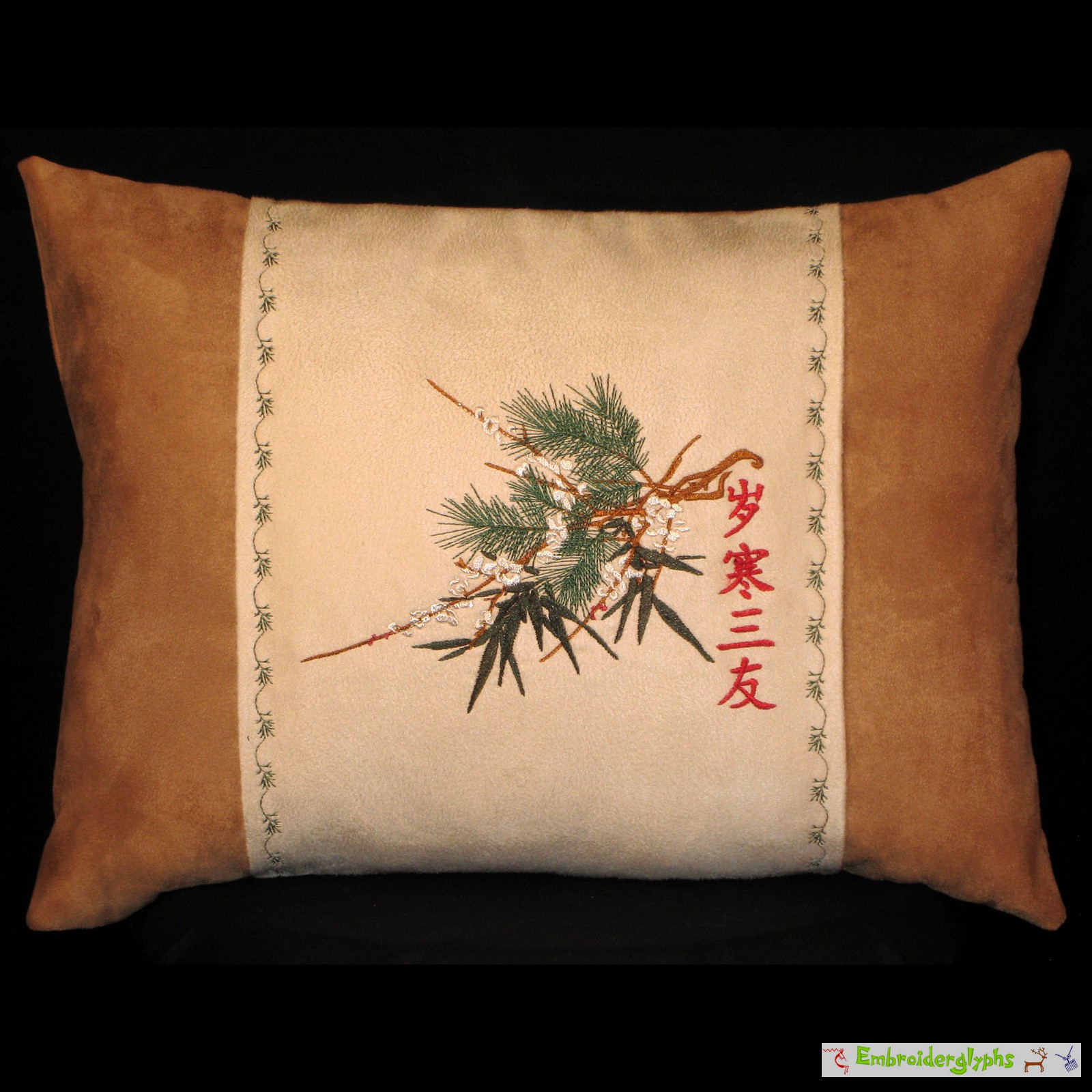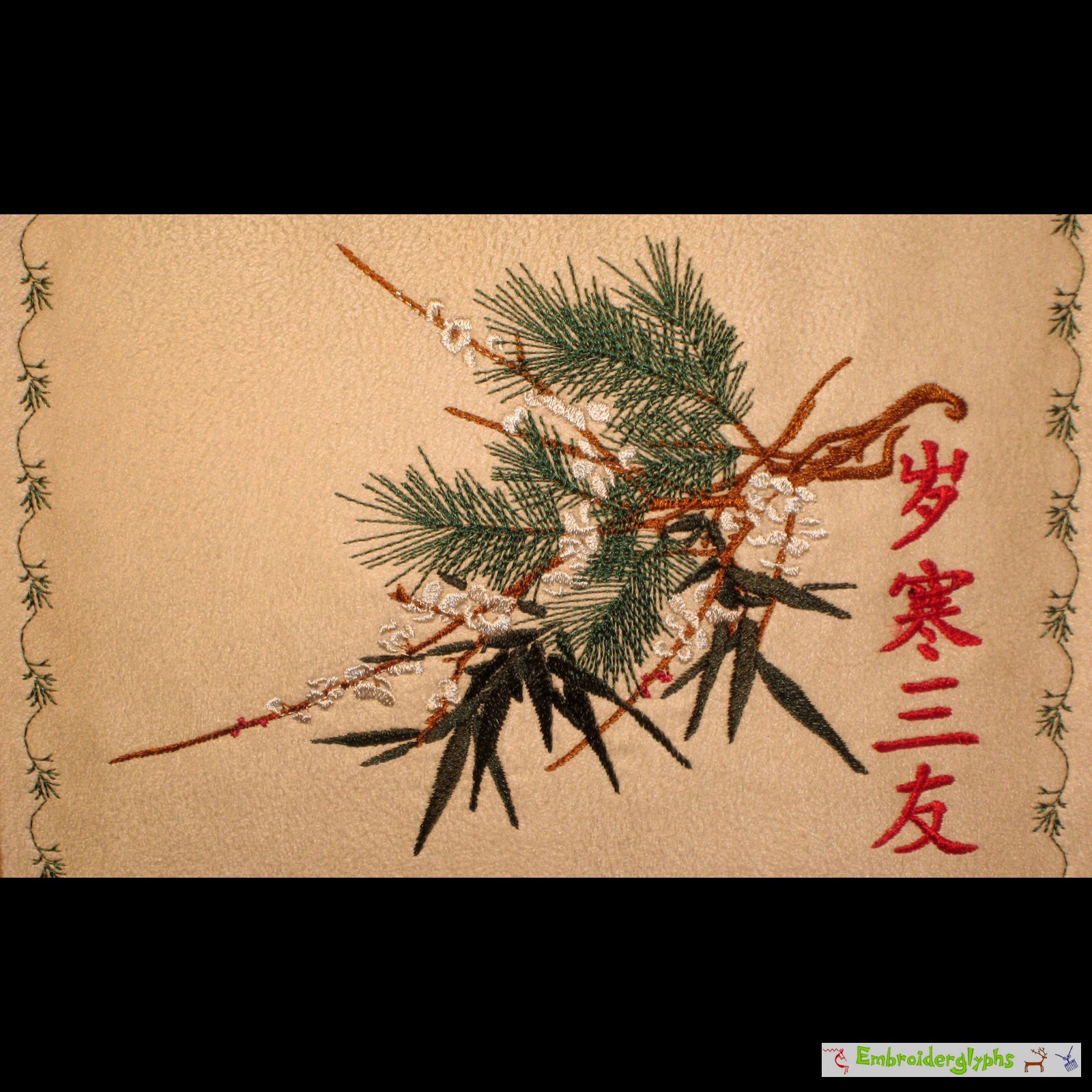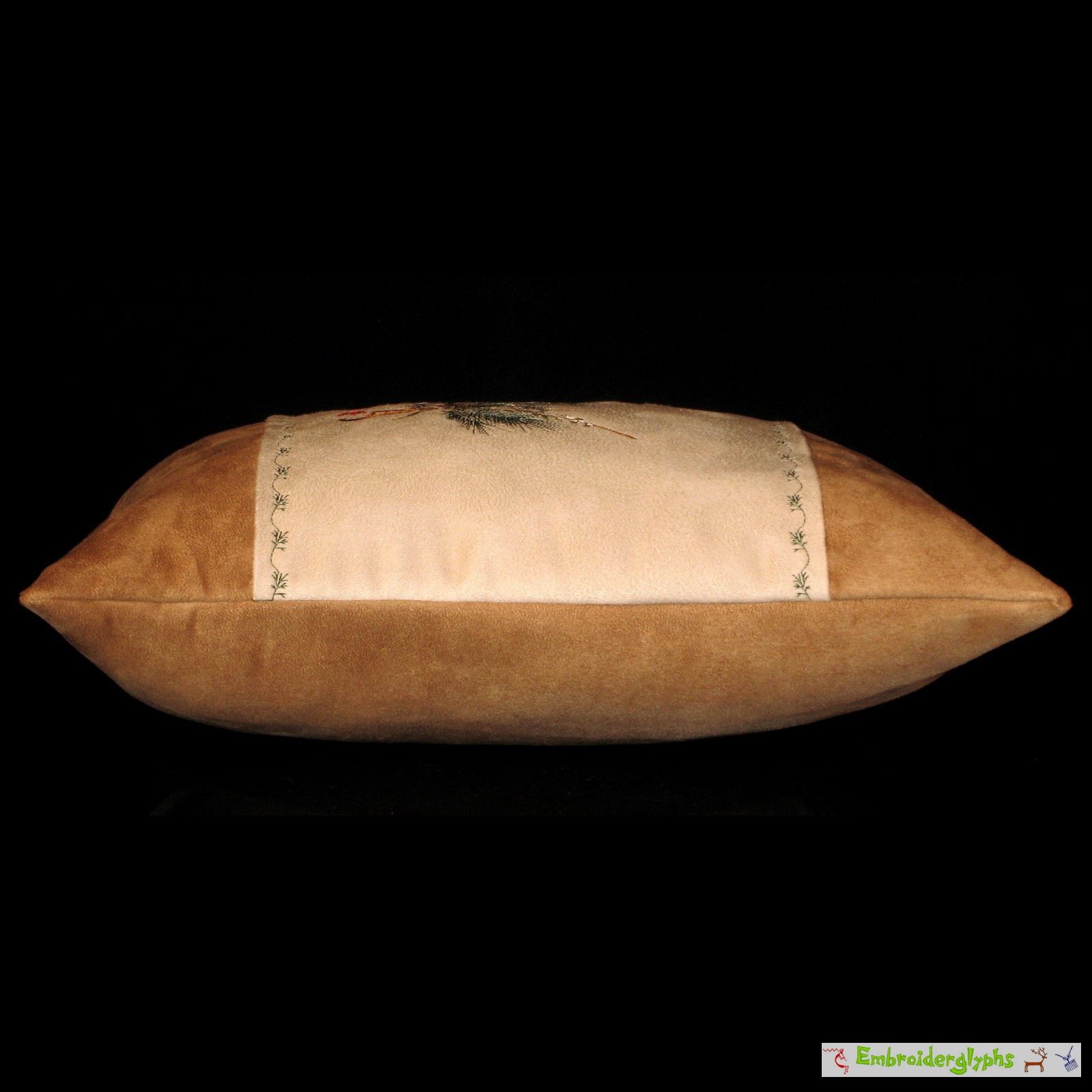
Cream & Tan “Three Friends of Winter” Accent Pillow
This is a one-of-a-kind custom accent pillow. It is a very elegant & beautiful pillow with a classic Chinese theme, called, "Three Friends of Winter."
The three “friends” refers to: pine, bamboo, and plum. This traditional theme was started by Lin Jingxi, 1241–1310 (the Song dynasty). From, “The Clear Mountain Collection,” he wrote, “For his residence, earth piled to form a hill and a hundred plum trees, which along with lofty pines and tall bamboo comprise the friends of winter were planted.”
Since then, many artists have created designs based upon these three plants that thrive together — even in the winter. These three plants show a surprising vitality. They have a natural ability to flourish in harsh conditions — earning them much praise.
This pillow is designed to look similar to a design by the Chinese master Zhao Mengjian. (ca. 1199–1264) His design is described as an elegant, refined and tranquil composition.
There is a combination of pine needles that crisscross — dark bamboo leaves that poke out the bottom — and lines of delicate bamboo blossoms.
Beth chose to make these blossoms white. If you place a custom order request for this design on another item, the blossoms may be another color, such as light or dark pink.
There are two common forms of text that could be used with this design. One would translate: “Pine, Bamboo, Plum.” The other translates: “Three Friends of Winter.” This design uses the second translation.
The characters are: 歲寒三友
The first character is: 歲 suì (pronounced, swee). It means: year, years old, age, harvest.
The second character is: 寒 hán (pronounced, han). It means: cold, wintry, chilly, poor, to tremble.
The third character is: 三 sān (pronounced, san). This means: 3.
The fourth character is: 友 yǒu (pronounced, yo, as in, “yo ho ho”). This means: friend, companion, fraternity.
Together, the four characters in the phrase translates as: “Three Friends of Winter.”
Red is a traditional color for the text. For custom orders you may request a different text color.
The type of calligraphy used — its “font” — is a simplified font that has nice curves, is elegant, and digitizes well. This is not a machine font built into an embroidery machine. Each character has been digitized by hand. Each character's strokes actually stitch out in the correct order as if a professional Chinese calligrapher was painting them.
To summarize, this pillow combines, elegance, beauty, pine, bamboo, plum, and a nice thought of ancient Chinese philosophy.
The front center panel uses cream upholstery suede-like fabric with the embroidered design, and a tan green suede-like fabric on each side of the center panel and on the back. Note the decorative edging on each side of the center panel.
This design has a high stitch count and has a very tactile feel. Numerous layers gives realism and a nice depth to the design.